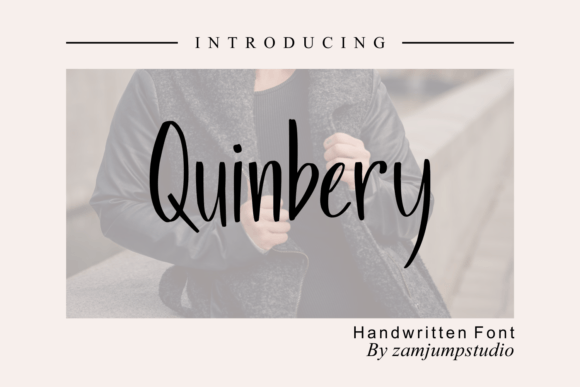
Embark on an artistic voyage with Quinbery Font, a mesmerizing script handcrafted to ignite your creative spark. This extraordinary font evokes a sense of elegance and poise, making it the perfect choice for expressing your individuality and leaving a lasting impression.
With its captivating curves and smooth strokes, Quinbery Font is a visual masterpiece that dances across the page, capturing the eye and captivating the soul. Its unique design exudes a classic charm that blends seamlessly with modern aesthetics, ensuring that your projects radiate timeless sophistication.
Unleash your inner artist and delve into a world of creative possibilities with Quinbery Font. Its versatility knows no bounds, allowing you to effortlessly craft stunning logos, eye-catching social media posts, alluring invitations, and captivating branding materials that speak volumes about your unique style and impeccable taste.
Step into the limelight and let Quinbery Font elevate your designs to new heights. Its meticulous attention to detail and effortless flow create a harmonious balance that effortlessly draws attention and leaves a lasting impact. Whether you're a seasoned designer or just starting, Quinbery Font is your gateway to creating designs that captivate and inspire.
As you embark on this creative journey with Quinbery Font, you'll discover a whole new realm of expression. Its enchanting script will ignite your imagination and empower you to turn your creative visions into stunning realities. So, dive in, let your creativity soar, and experience the transformative power of Quinbery Font today!